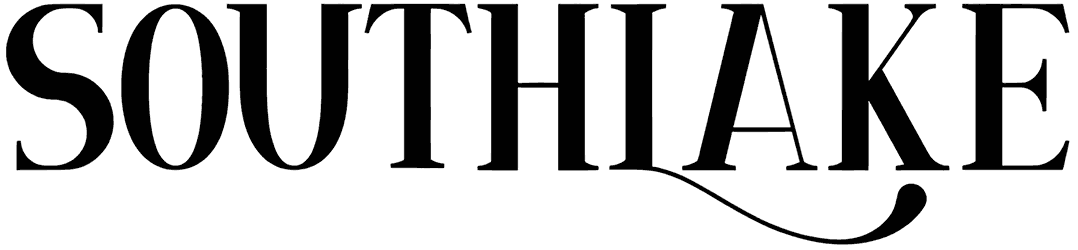
Gar-A-Mond Tall Font
Gar A Mond Tall Font
Every letter stands in a tall, clear, and also traditional appearance due to its serif end design. Gar-A-Mond Tall with two different files gives more diversity and freedom of action in many headlines, main text, websites, magazines, and much more. So, involve this serif font for any official writing assignments that need high readability to keep all readers excited and create trustworthy vibes for them.